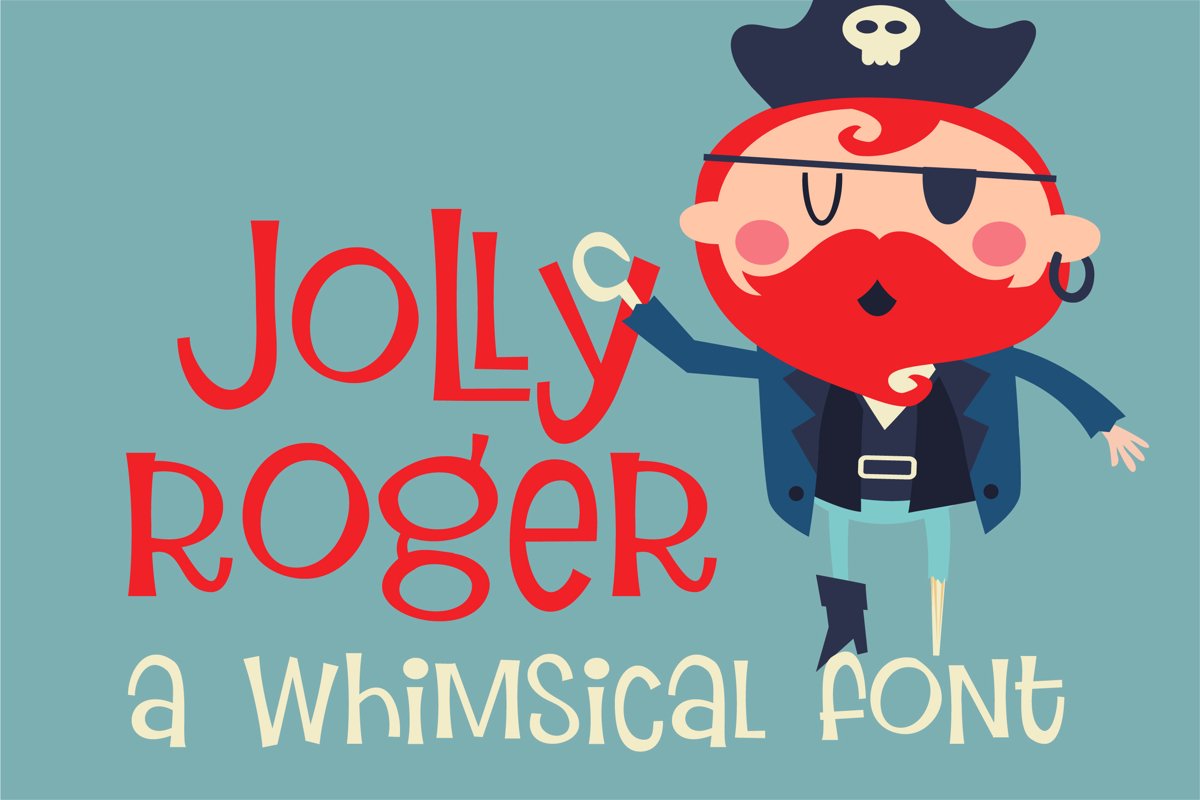
This whimsical font features a few cute interlocking ligatures you can access through your system's character map or a program that utilizes open type features. Bold version included.